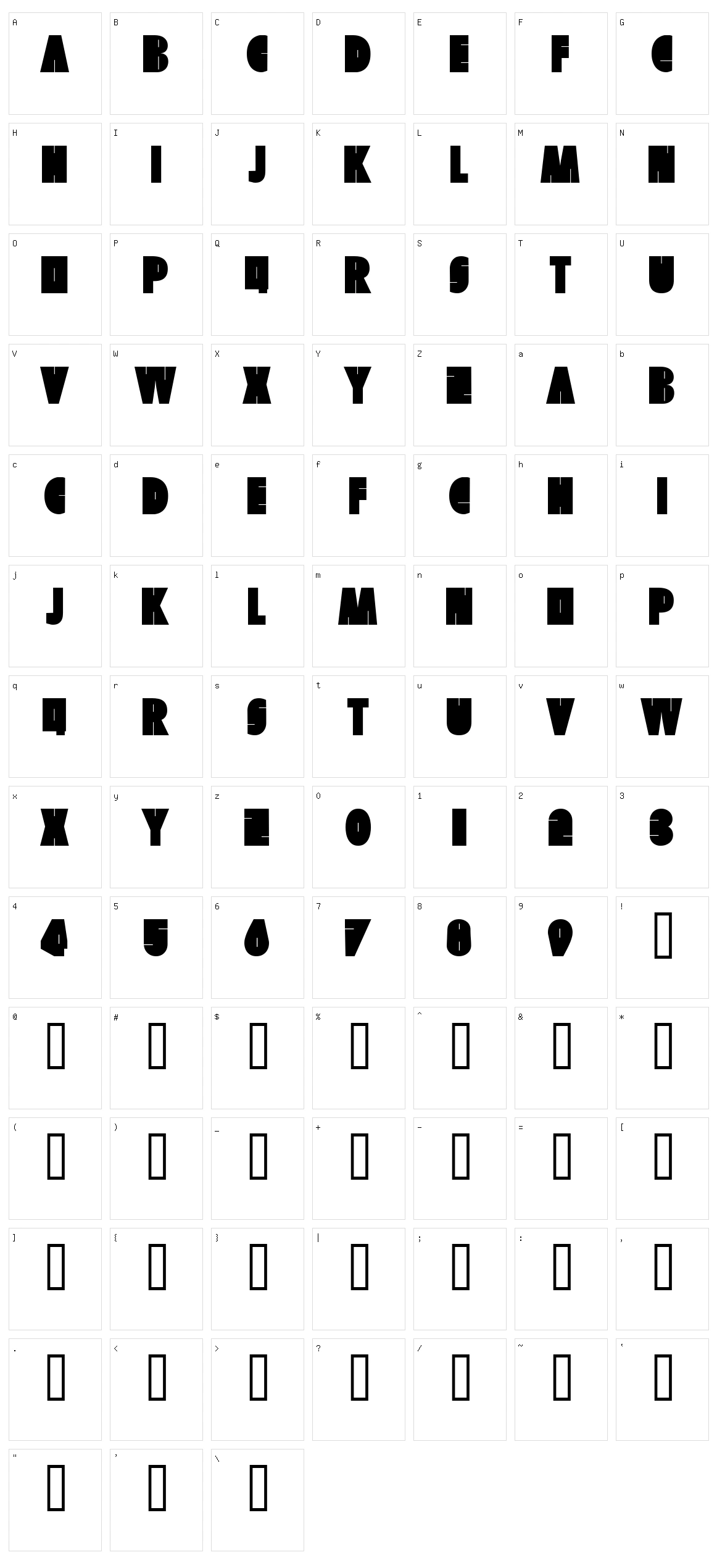
Skuer is a free typeface created in October 2012 and based on a "urban" style.
The typeface contains all main characters (from A to Z - capitals & lowercases are the same ) and numbers (from 0 to 9).
The following pictures show you how are the height and the width of the typeface and some examples on how it could be included on a logo, photo or anything else.